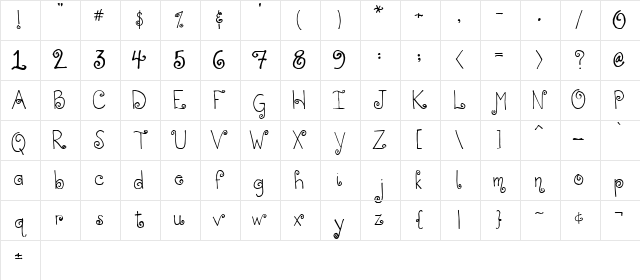
Complete rated ed glyph index. Displaying only characters natively supported by rated ed font.
rated is a composed and adaptable typeface that performs quietly and consistently across a wide range of design contexts.